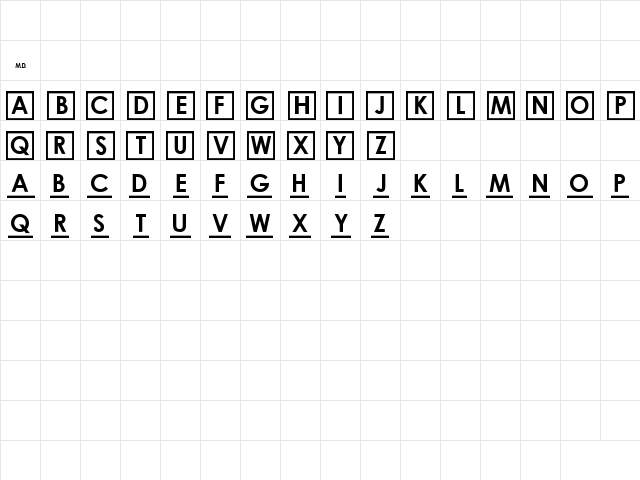
House M.D. Regular
Design Context for House M.D. Typeface
House M.D. is a composed and adaptable typeface that performs quietly and consistently across a wide range of design contexts.